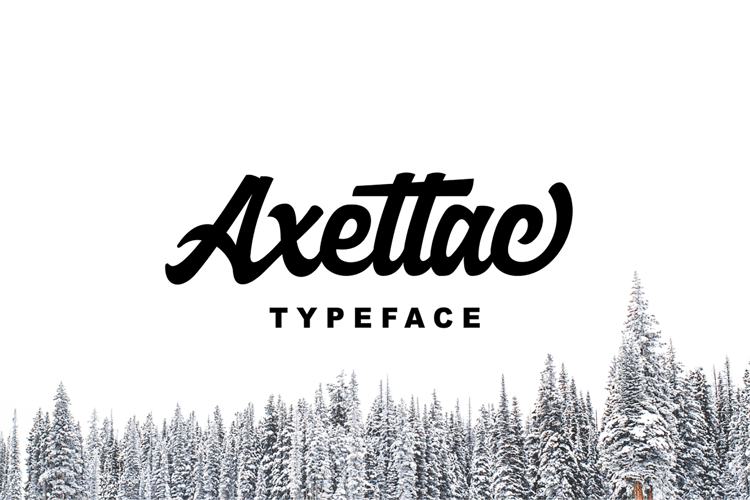
Axettac Font
About Axettac Font
Introducing Axettac , It’s included Script as main font. This font is a bold script typeface. This font is perfect for logotype, label design. poster, flyer, display, sticker and many more.